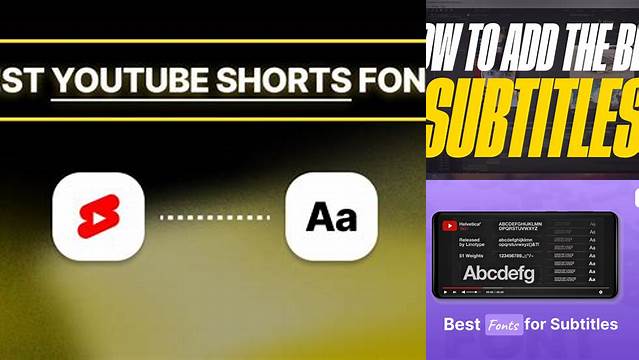
Best Fonts For YouTube Subtitles: A Guide To Clarity And Style
Hey everyone! If you're a YouTuber, you know how crucial subtitles are for your videos. They make your content accessible to a wider audience, including those who are deaf or hard of hearing, and viewers who speak different languages. They also help people watch your videos in noisy environments or when they're on the go and can't listen with sound. But choosing the right font for your subtitles can be tricky! The Best Fonts for YouTube Subtitles, you must consider readability, style, and how well they integrate with the overall look of your video. Today, we're diving deep into the best fonts for YouTube subtitles, breaking down what makes them work and why you should consider using them. Let's get started and make your videos even more awesome! Choosing the right font can significantly enhance your audience's viewing experience, making your content more accessible and engaging. This comprehensive guide will explore the key factors to consider when selecting the perfect font for your YouTube subtitles and provide recommendations for the best fonts for YouTube subtitles to ensure your message is clearly conveyed. Whether you're a seasoned content creator or just starting out, this guide will equip you with the knowledge to choose subtitle fonts that boost your video's impact. Let's face it, guys, nobody wants to squint to read tiny, unclear text, right? Readability is king, and the font you pick plays a massive role. Get ready to elevate your subtitle game!
Understanding the Importance of Font Choice for Subtitles
Why does the font you pick even matter, you ask? Well, it’s all about making sure your viewers can easily read your subtitles. Think about it – if the text is hard to see, too fancy, or clashes with your video, people will tune out, and fast. Choosing the best fonts for YouTube subtitles is a critical aspect of video accessibility and viewer engagement. A well-chosen font enhances the viewing experience, ensuring that your message is clear and easily understood by a diverse audience. On the flip side, a poorly chosen font can frustrate viewers, making your content less accessible and potentially leading to a loss of engagement. The Best Fonts for YouTube Subtitles are essential for making your content accessible to a wider audience, improving viewer engagement, and maintaining a professional look. The goal is to find fonts that are easy on the eyes, that don’t distract from your video and that are still in line with your channel's style. The font you choose needs to be readable on any screen, on any device, and against any background. Consider the context: is your video bright and busy, or dark and simple? The font should complement, not compete. You also want to consider the target audience. If you're creating videos for kids, a playful font might be perfect. If you're aiming for a more professional audience, you'll want something clean and clear. The Best Fonts for YouTube Subtitles are the ones that strike the right balance between style and practicality. Moreover, subtitling provides an inclusive experience by enabling individuals with hearing impairments or those who prefer to watch videos without sound to enjoy your content. By paying attention to your font selection, you ensure that your videos are accessible, engaging, and professional. Selecting the best fonts for YouTube subtitles involves considering several critical factors. The primary focus should be on readability, ensuring that your viewers can effortlessly follow the text. Additionally, consider the visual impact of the font on the overall video, ensuring it complements the content and doesn't distract from the viewing experience. With the right font, you can greatly improve your video's accessibility and viewer engagement. Remember, you want to make it easy for people to watch and enjoy your content.
Key Factors to Consider When Choosing a Subtitle Font
Alright, before we jump into specific fonts, let's break down what you should be looking for. First up is readability. This is the most important thing! Your font needs to be clear, easy to read, and not too cramped. Make sure the letters are well-defined, and that they're easy to distinguish from each other. The Best Fonts for YouTube Subtitles are readable. The best fonts are designed to be easily read on any screen size. Next, think about the style of your video. Does your channel have a fun, playful vibe, or a more serious, professional one? Your font should match the mood of your content. Also, it's super important to consider contrast. The font needs to stand out from the background of your video. If your video has a lot of light colors, you will need a darker font, and vice versa. Font size is also essential. Make sure your subtitles are large enough to read, but not so big that they take up too much space on the screen. Test your subtitles on different devices to ensure they're readable on mobile phones, tablets, and computers. Another factor to consider is font weight. Using a bold or semi-bold font weight can improve readability, especially when the text is displayed on a busy background. Avoid fonts that are too thin or delicate, as these can be difficult to read. The Best Fonts for YouTube Subtitles have consistent appearance, and they should be easy to read. Think about how the font looks in different sizes, and make sure it remains legible. You might want to test out a few different fonts before you decide. Test your subtitles on different devices to ensure readability across various screen sizes and resolutions. Finally, when choosing the best fonts for YouTube subtitles, consider the overall style of your video. Does your channel lean towards a modern, minimalist aesthetic, or a more traditional, classic look? Choose a font that aligns with your branding and content style. It's also crucial to consider the language of your subtitles. Some fonts are better suited for certain languages than others. Certain font styles may have variations that include extended characters needed for multiple languages. It is recommended to review the font’s support for multiple languages.
Top Font Recommendations for YouTube Subtitles
Okay, now for the fun part! Here are some of the best fonts for YouTube subtitles that you should consider, and why they work:
1. Arial
Arial is a classic, simple, and highly readable sans-serif font. It's easy on the eyes, and it works well against any background. It's also a default font in many video editing programs, which makes it super convenient. The Best Fonts for YouTube Subtitles include Arial because it is versatile, legible, and universally recognized, making it a great choice for any YouTube video. Because of its versatility, Arial is a good go-to option if you don't want to overthink it. It's a safe bet for any video, and your audience will be able to understand your message loud and clear. Arial is a reliable choice and is one of the most common fonts used for readability.
2. Helvetica
Similar to Arial, Helvetica is a clean, sans-serif font that's incredibly readable. It has a slightly more modern feel. Helvetica is a popular choice in professional settings. The Best Fonts for YouTube Subtitles is Helvetica because of its high readability. Its clean lines and consistent letterforms make it easy to follow, which is essential for subtitles. If you want a modern, clean look, Helvetica is an excellent choice. Because of its clean design, it's also versatile and works well in various video styles. It's a great option if you want your video to have a sophisticated vibe.
3. Open Sans
Open Sans is a popular, open-source font that's designed for readability. It's a great choice if you want something modern but still easy to read. It's also widely available and free to use. The Best Fonts for YouTube Subtitles includes Open Sans because of its neutrality and readability. Its open letter forms provide a good reading experience. Open Sans is a fantastic option if you're looking for a free, accessible, and highly readable font. It is also one of the most common fonts and therefore can easily be used with your audience.
4. Roboto
Roboto is a modern, geometric sans-serif font that's designed by Google. It's highly readable and has a friendly, approachable feel. The Best Fonts for YouTube Subtitles includes Roboto because of its readability. Its friendly appearance is good for any kind of content. Roboto is perfect if you want a font that's both modern and easy to read. It's also great for mobile viewing.
5. Lato
Lato is a sans-serif font with a clean design. It's a very versatile font. The Best Fonts for YouTube Subtitles include Lato because of its balanced proportions and easy readability. It offers a professional look that's well-suited for a variety of videos. Lato is a great choice for your video. It's easy to read, it looks good, and it's free to use. It's especially good for channels that have a more modern aesthetic.
Tips for Optimizing Your YouTube Subtitles
Alright, you've got your font, now how do you make the most of it? Here are some quick tips. First, keep the font size consistent throughout your video. Second, make sure there's enough contrast between the font and the background. Use a background if needed. Also, try to keep your subtitles brief and to the point. Nobody wants to read long blocks of text. Your goal is to enhance the viewing experience, not distract from it. Keep the word count low. Don’t overload the screen with too many words. Make sure your subtitles are timed correctly to match the audio. Finally, review your subtitles thoroughly before publishing your video. Proofread for errors and check for readability. The Best Fonts for YouTube Subtitles must be perfect to make sure your audience understands your message. You can also use different colors to highlight specific words or phrases. Make sure your font matches the style of your video. Test your subtitles on different devices to make sure they’re readable. If you're using a video editing program, explore the different subtitle settings and features. Also, use a good subtitle generator like Adobe Premiere Pro, Kapwing, or others. By focusing on readability, style, and visual integration, you can ensure your subtitles complement your content and enhance the viewing experience. Remember, the best fonts for YouTube subtitles are only part of the equation. These tips will help you take your subtitle game to the next level. Following these tips will help create effective subtitles, increasing your video’s accessibility and engagement. With the right font and optimization, your subtitles will become a valuable asset for your YouTube channel.
Conclusion: Choosing the Right Font for Success
So, there you have it, guys! Choosing the right font for your YouTube subtitles is a super important part of creating awesome content. By focusing on readability, style, and contrast, you can make sure your subtitles are easy to read and enhance your viewers' experience. Remember to try out different fonts and see what works best for your videos. The best fonts for YouTube subtitles are those that improve your video's accessibility and engagement. And as you experiment, don’t be afraid to get creative. By following the tips in this guide, you'll be well on your way to creating professional, accessible, and engaging videos that your audience will love. Happy creating! Now go out there and make some awesome videos with subtitles that are easy to read!